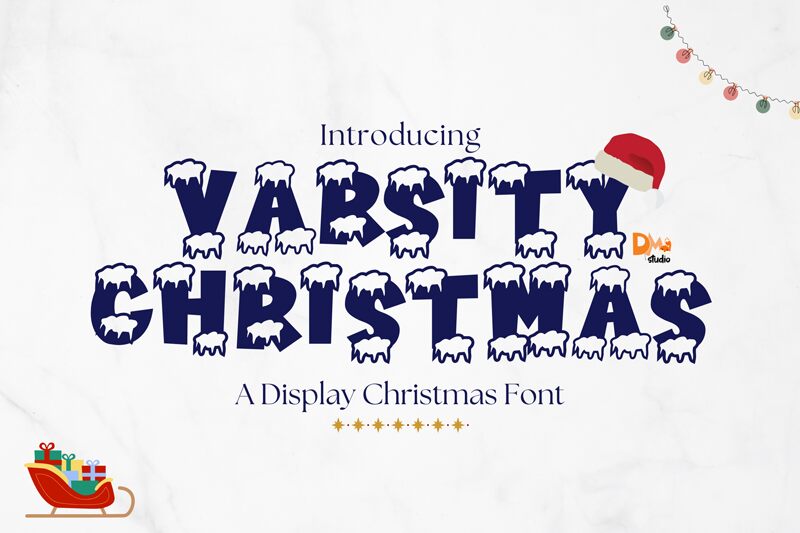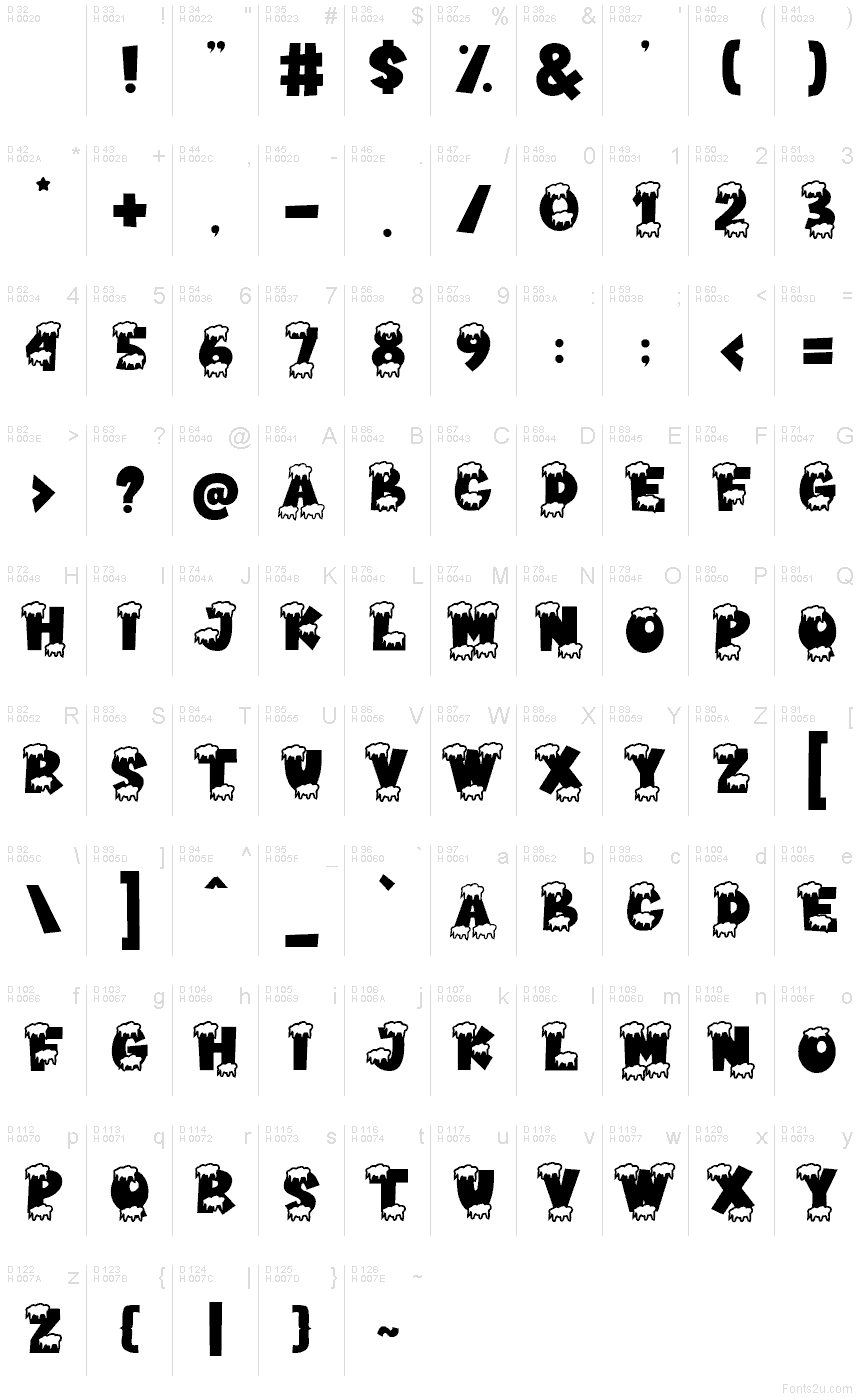
Varsity Christmas
Varsity Christmas font by DM Letter Studio - Dimas Prasetyo is a free holiday Christmas typeface that turns every word into a snow-dusted headline. Chunky varsity-style letters are piled with soft, melting snowcaps, giving each line the look of frosty banners hung across a cozy winter street. The bold shapes stay easy to read even with all the icy texture, so you get plenty of personality without losing clarity.
Using Varsity Christmas, you can instantly dress up greeting cards, classroom materials, party invitations, printable tags, festive posters, and social media graphics. This free font shines when you set it large and let the snowy tops do the talking; pair it with a simple sans serif for body text so the frosted lettering can lead the celebration.